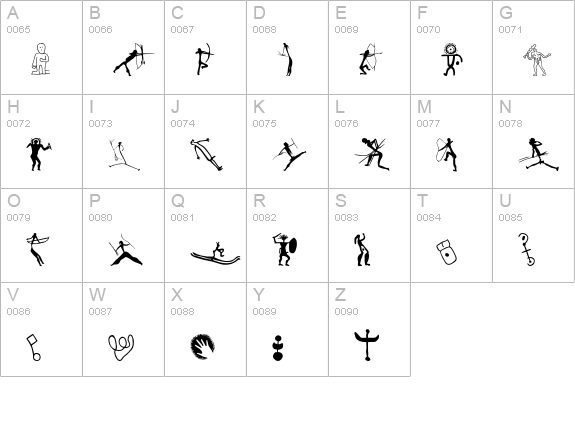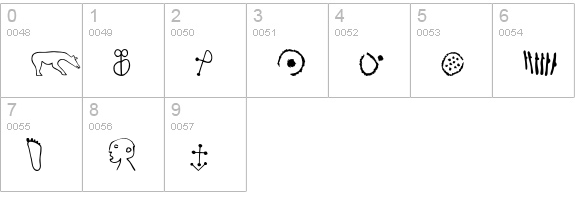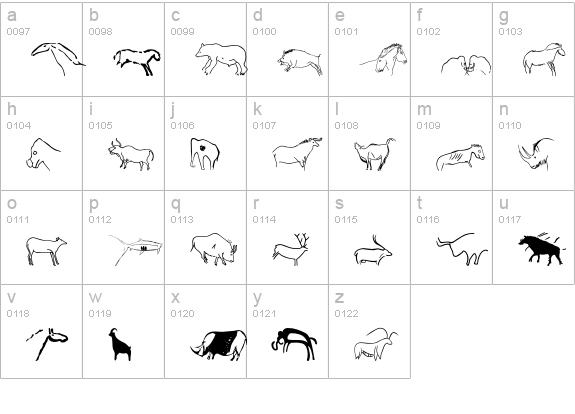
P22Petroglyphs-European Font Details
Introducing P22Petroglyphs-European font, a captivating typographic masterpiece that effortlessly blends ancient symbolism with modern design. This extraordinary font transports you back in time to the era of prehistoric cave art, where primitive drawings told tales of our ancestors' struggles, triumphs, and beliefs. P22Petroglyphs-European font beautifully captures the essence of these ancient petroglyphs, meticulously preserving their original authenticity while adding a contemporary twist. Each character is intricately crafted, embodying the raw energy and creativity of our ancestors. From mesmerizing geometric patterns to intricate animal depictions, this font breathes life into your designs, captivating your audience with its timeless appeal. But what sets P22Petroglyphs-European font apart is its commitment to accessibility. It believes that art and creativity should be free and accessible to all. That's why this font is freely available to download at FontsMarket.com, ensuring that designers, artists, and enthusiasts from all walks of life can harness the power of these ancient symbols in their work. Whether you're designing a logo, crafting a presentation, or simply expressing your creativity through typography, P22Petroglyphs-European font offers an unparalleled opportunity to infuse your work with the spirit of our ancestors. Its versatility allows it to seamlessly adapt to a wide range of projects, from historical publications to contemporary designs seeking a touch of artistic heritage. With P22Petroglyphs-European font, you have the chance to honor and celebrate our shared human history while creating something truly unique. So go ahead, download this extraordinary font for free at FontsMarket.com, and let your imagination run wild as you bring the timeless beauty of petroglyphs to life in your designs.